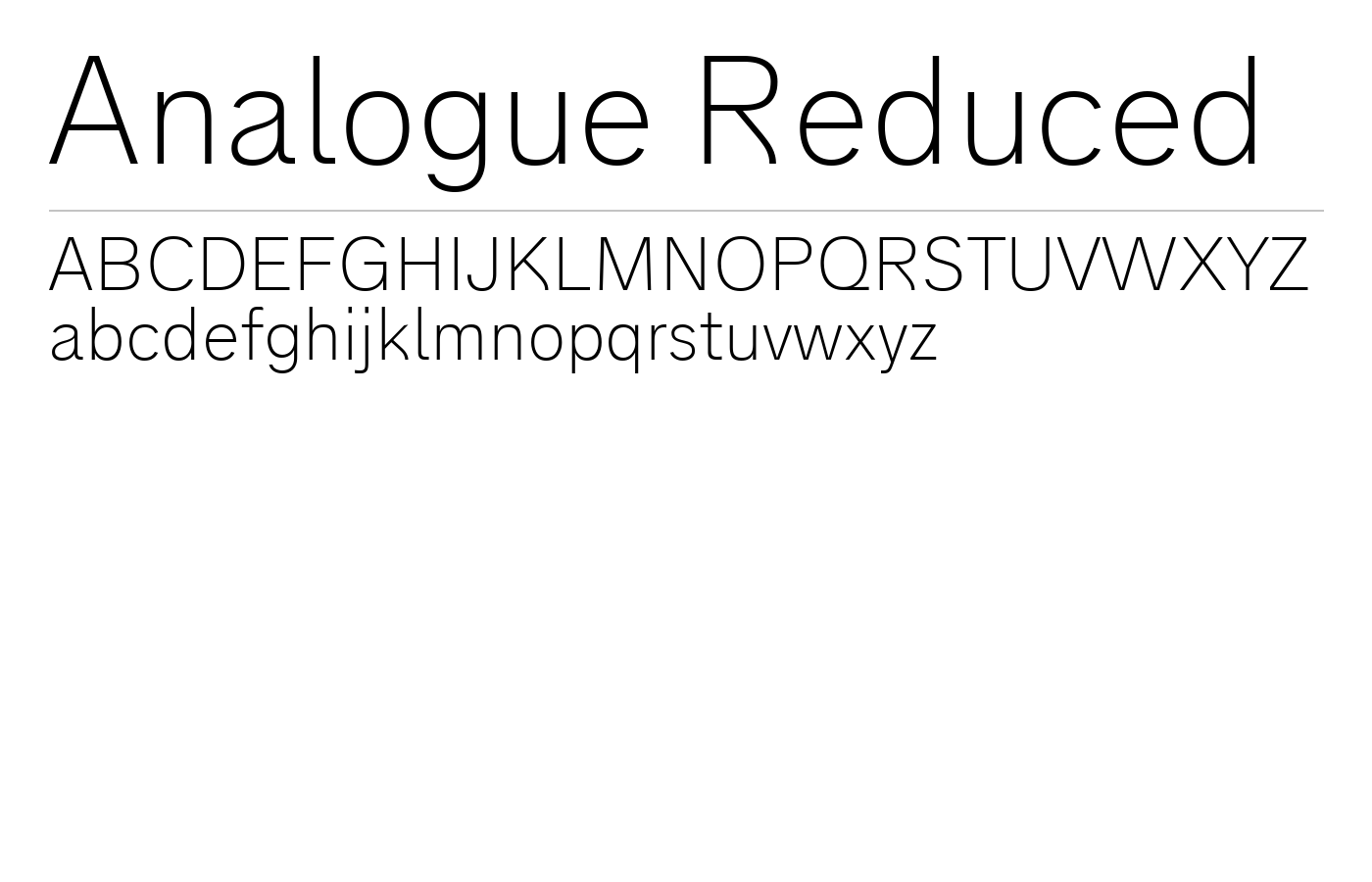
Analogue Reduced is a sleek, modern sans serif font with a light weight and narrow width that gives it a refined, minimalist appearance. Its clean lines, tall x-height, and geometric shapes create an airy and elegant feel, making it well-suited for contemporary branding, editorial headlines, and digital interfaces where clarity and sophistication are key. This font’s simple yet distinct letterforms lend themselves perfectly to projects that require a professional, stylish, and understated look.
Analogue Reduced Font
About Analogue Reduced Font
| Font family | Analogue Reduced Font |
| Designer | Ingo Zimmermann |